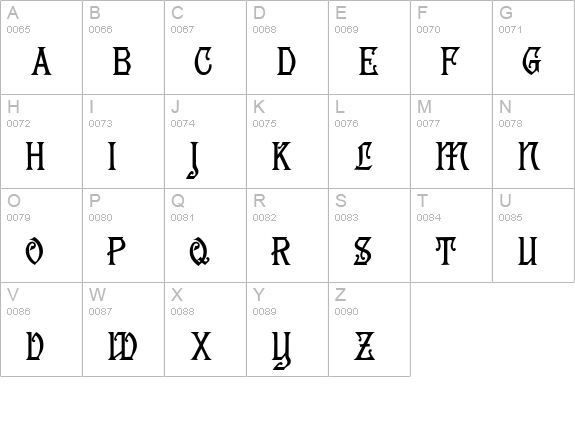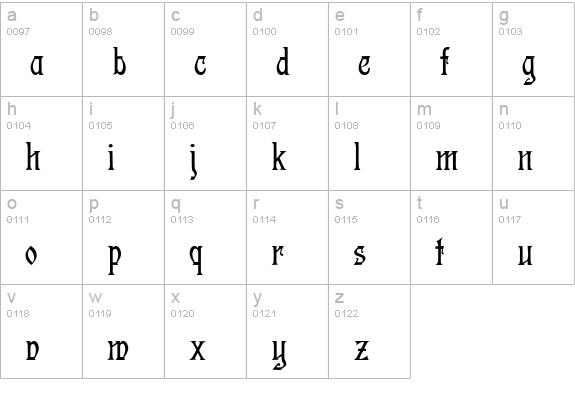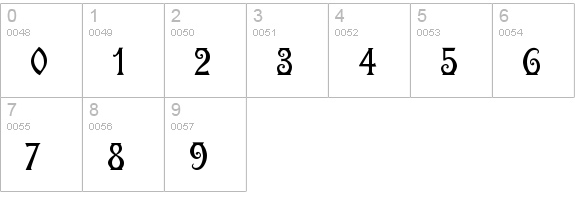
Descant Font Details
Descant font is a modern and elegant typeface that exudes sophistication and style. With its clean lines and subtle curves, Descant is perfect for adding a touch of class to any design project. Whether you're creating a wedding invitation, a logo, or a business card, this font will elevate your work to the next level. The best part? Descant font is completely free to download at FontsMarket.com. This means you can access this stunning font without any cost, making it a valuable addition to your font collection. Don't miss out on the opportunity to enhance your designs with the beauty and versatility of Descant font - download it now and start creating stunning visuals today!